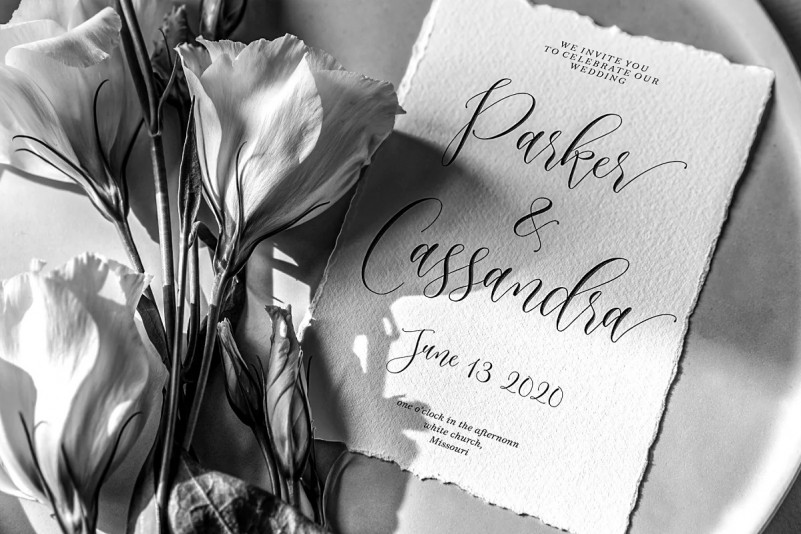
Hafidzah Calligraphy Font
Introducing hafidzah a lovely handwriting font, made by inky and expressive yet readable and functional, this typeface is designed to look perfect fit for signature logos or invitation wedding as needed.